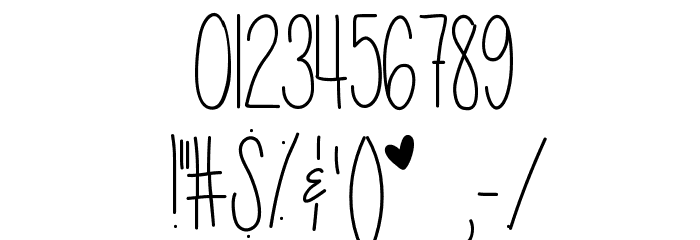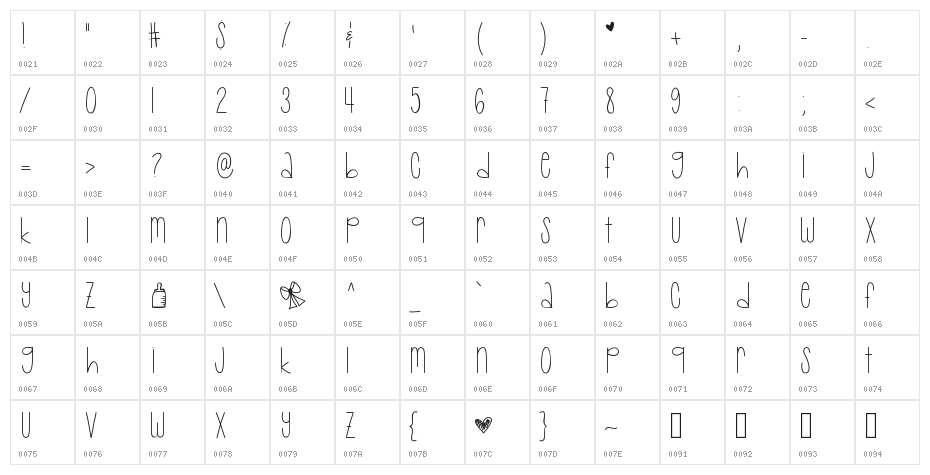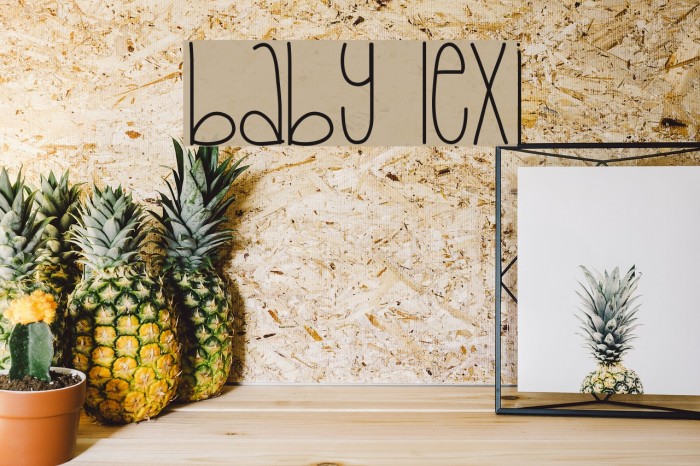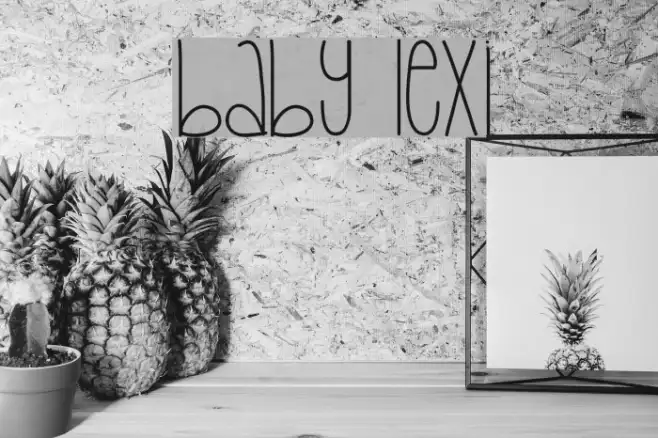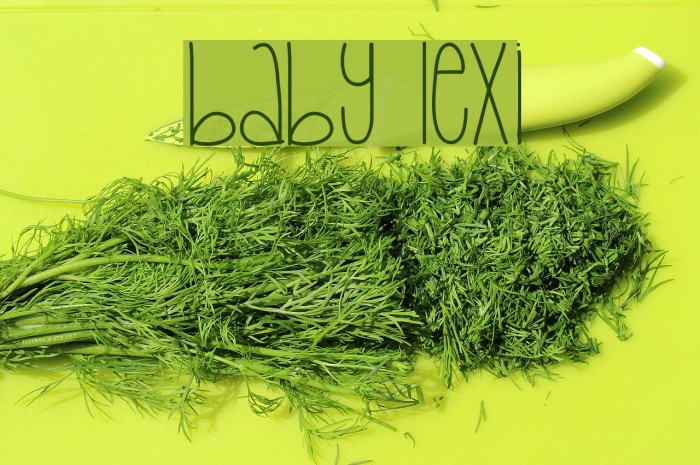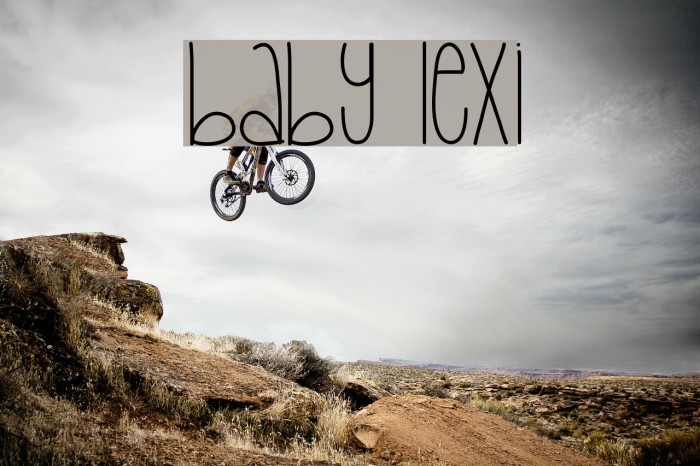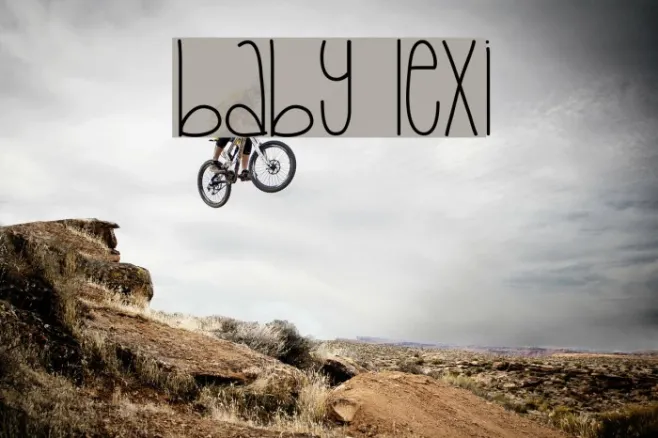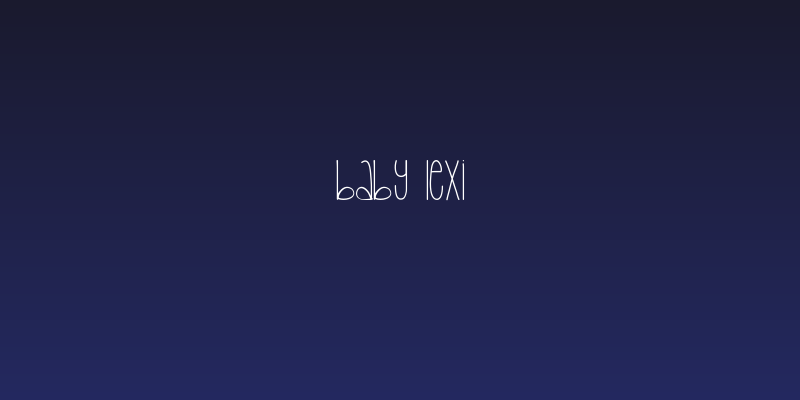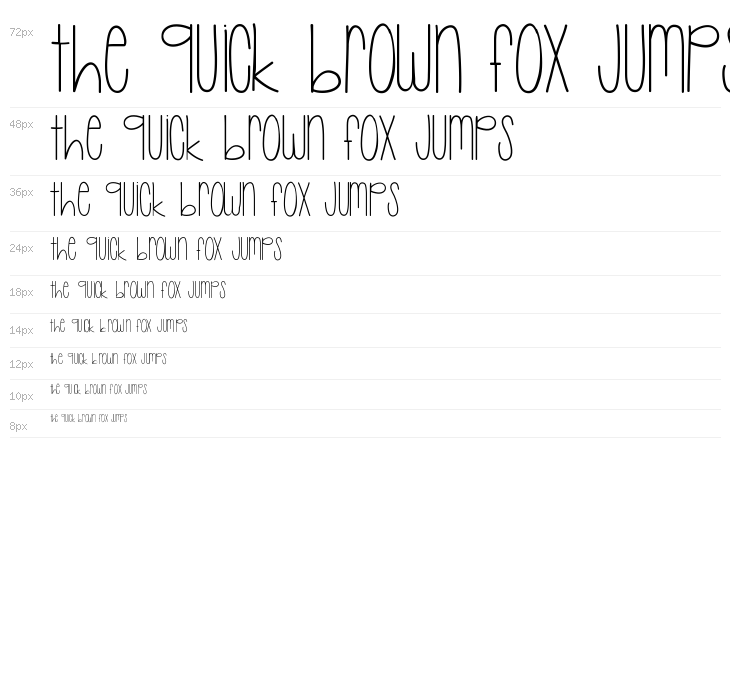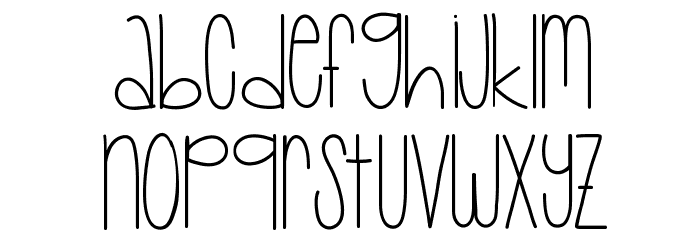
Baby Lexi Font
Baby Lexi Description
This playful and whimsical font features tall, narrow letters with a hand-drawn aesthetic. The characters are uniformly thin, with a consistent stroke width that gives the font a clean and modern look. The uppercase and lowercase letters share a similar height, creating a cohesive and balanced appearance. The font includes a full set of numerals and a variety of special characters, adding versatility to its use. Its unique style is characterized by rounded edges and a slightly elongated form, making it ideal for projects that require a touch of creativity and fun.
| Proposed Projects | Perfect for children's books, playful branding, greeting cards, and creative posters. |